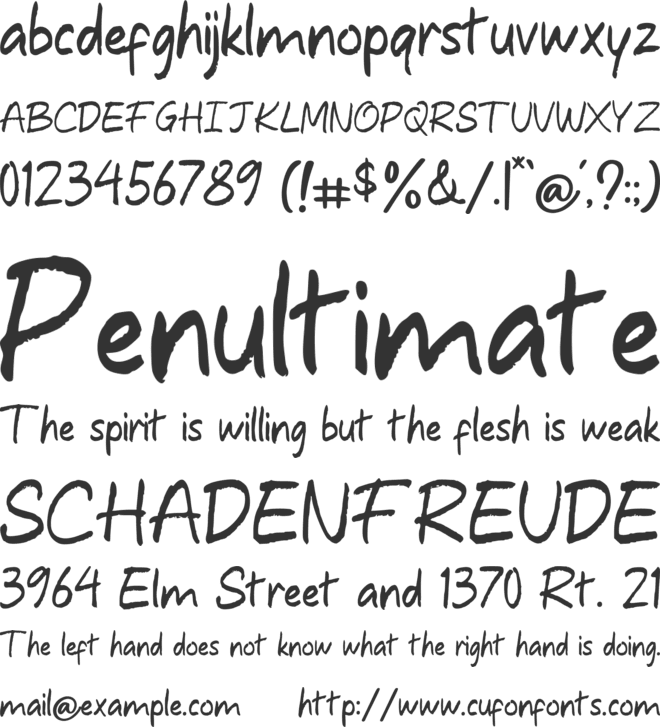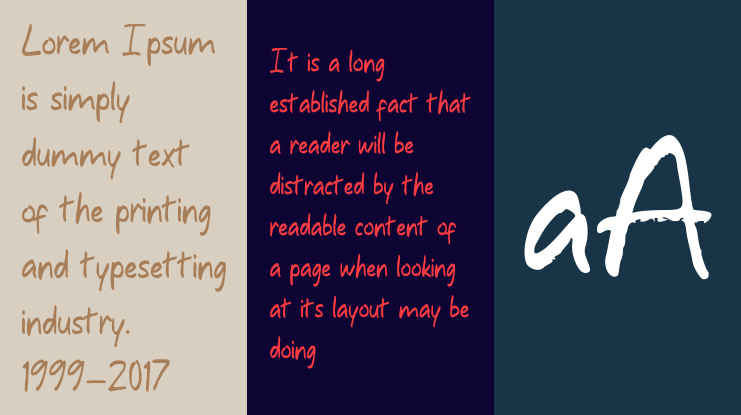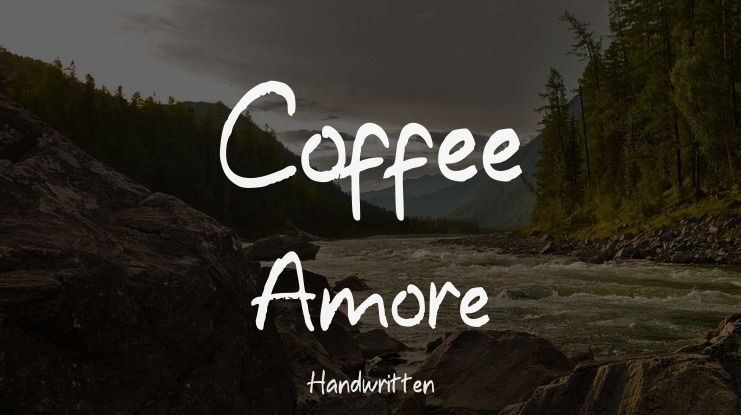
Coffee Amore Font
Bery Arisandi , Basnistudio
CoffeeAmore a Handwritting Font Created with real pen strokes for a natural look gives you the creative edge you need.